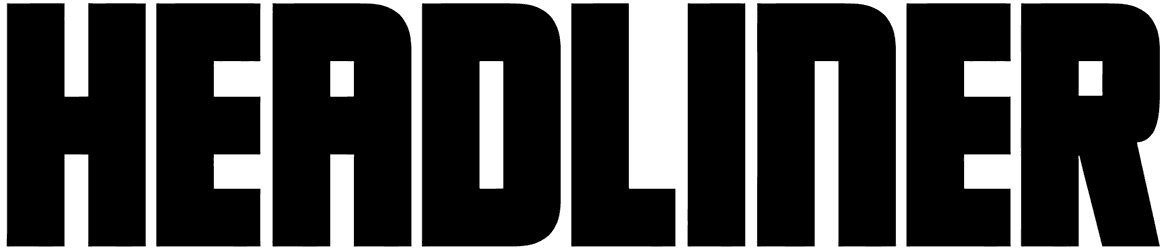
Headliner Font
Do you want your design to look professional today? Do not pass on this offer, named Headliner, because it can be a great help with its humble and bold mood. This title font doesn’t cover lowercase letters, but with two variants, it could be a cool choice for many items such as covers, posters, logos, and so forth.